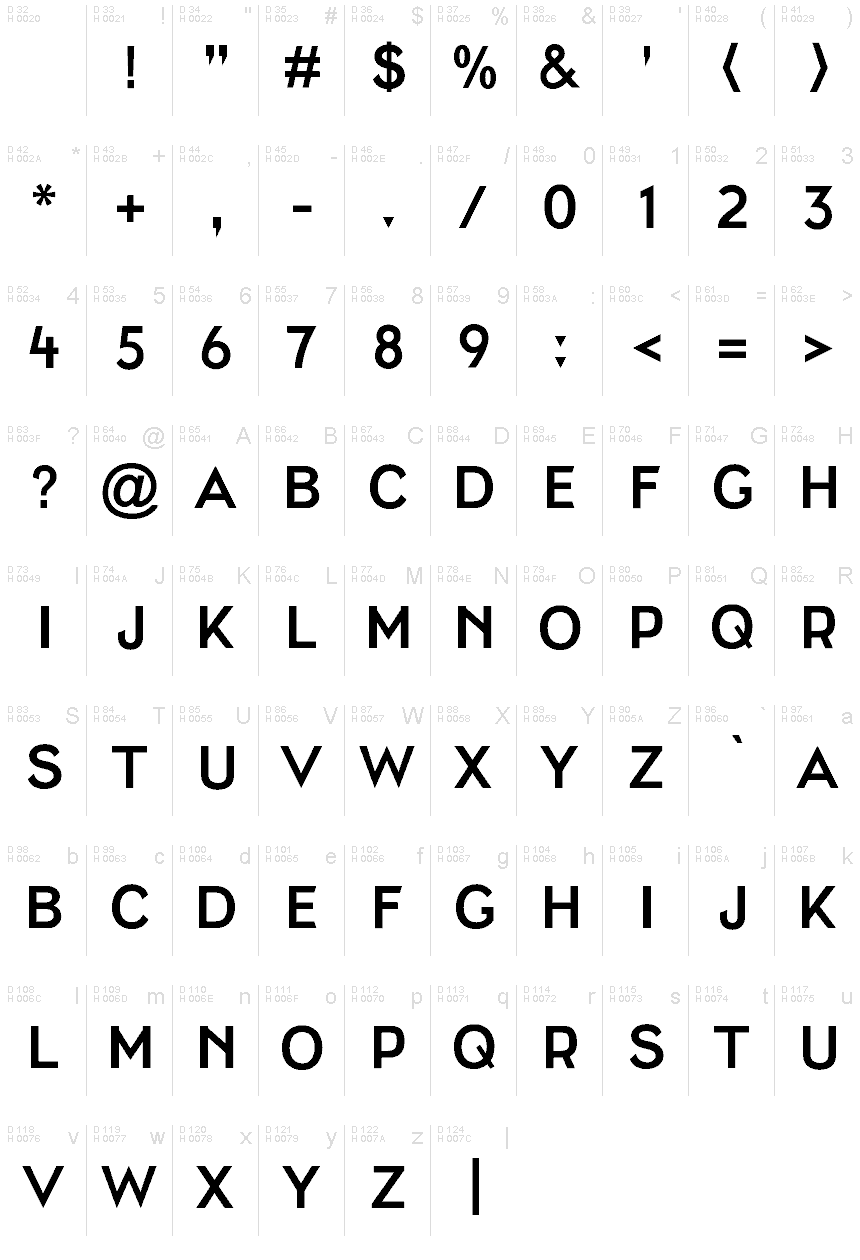
Neue Bureau Grotesk Regular
Neue Bureau Grotesk font is a sans serif typeface with strong geometric traits, clear lines, and a monotony-free appearance. Beyond the shape of the individual letters (don’t worry we won’t dwell on them!), its conceptual style draws from modernist influences which combine with a utilitarian approach to grant audiences contemporary visual appeal.